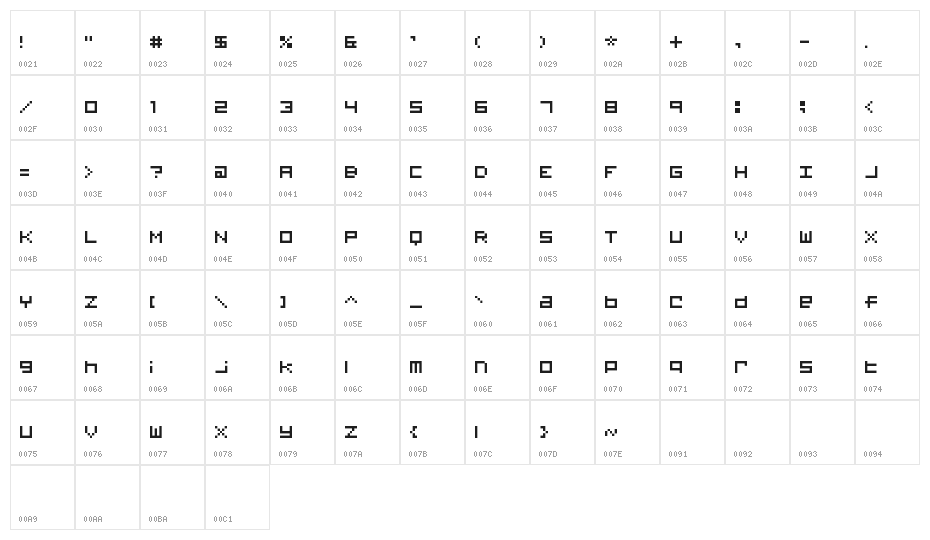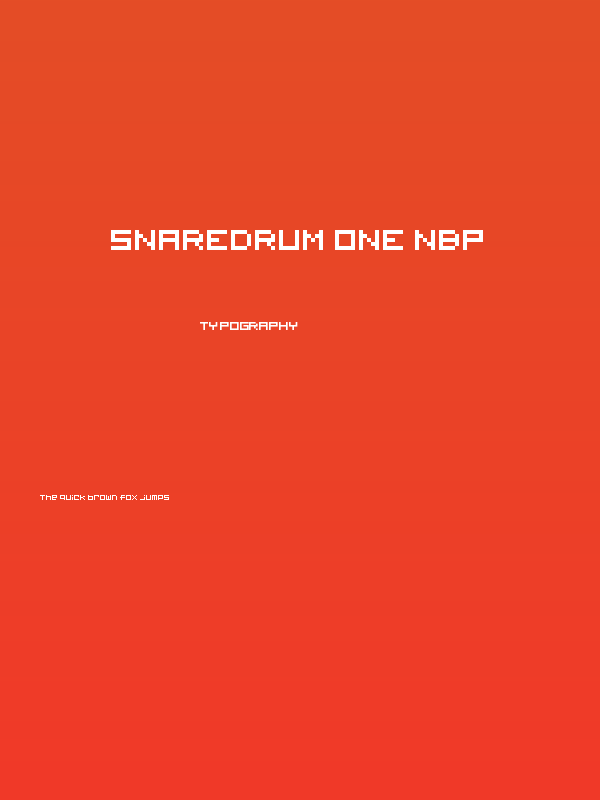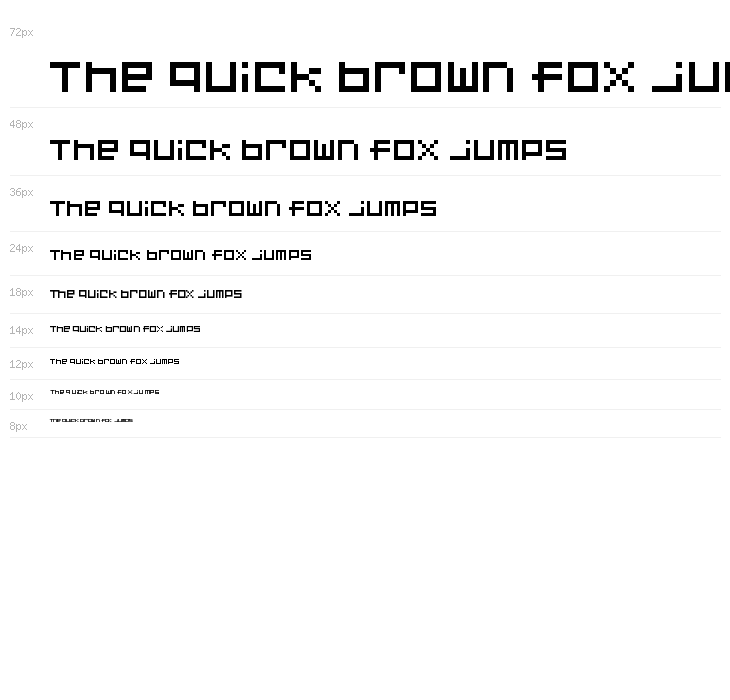
SnareDrum One NBP Font
SnareDrum One NBP Description
This font features a pixelated, blocky design reminiscent of early digital displays and retro video games. Each character is constructed with a uniform grid-like structure, giving it a distinctly digital and geometric appearance. The uppercase and lowercase letters maintain a consistent height, contributing to a monospaced feel, although the font is not strictly monospaced. The numerals and special characters follow the same pixelated style, ensuring visual cohesion across all glyphs. The overall aesthetic is bold and striking, making it ideal for projects that require a tech-savvy or nostalgic touch.
| Overall Style | Retro, Digital |
| Proposed Projects | Ideal for video game design, tech-themed posters, digital art projects, and retro-inspired branding. |